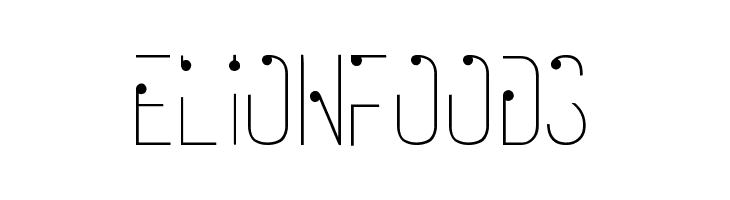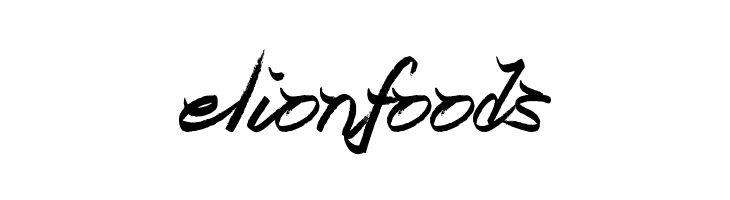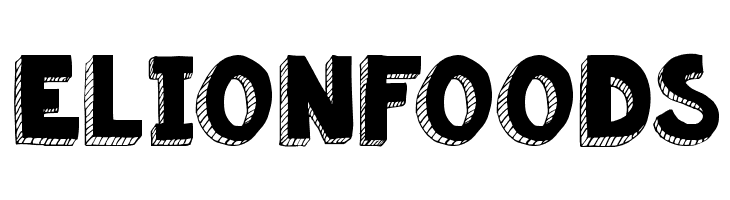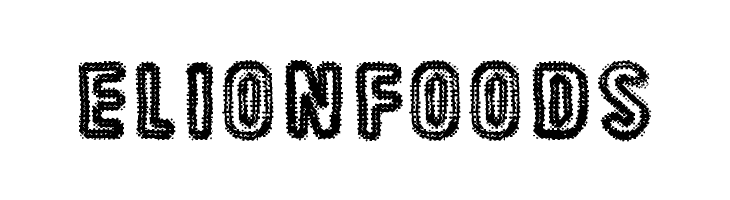
A playful, pizza-themed decorative font with bold outlines and whimsical details.
A bold, playful font with a whimsical, cartoonish style.
A skyline-inspired decorative font with a modern, architectural style.
A bold, italic, and geometric font with a dynamic and energetic style.
A bold, condensed font with a modern, industrial look.
A bold, condensed, and italicized font with a modern, dynamic style.
A bold, geometric font with angular shapes and a modern, industrial feel.
A modern, minimalist font with geometric shapes and dot embellishments.
A distressed, grungy font with bold, blocky characters and a rugged texture.
A bold, geometric font with a futuristic and modern style.
A playful, handwritten-style font with a light, italicized appearance.
A playful, informal font with rounded, consistent strokes and whimsical letterforms.
A playful, italicized font with a comic-like, handwritten style.
A playful, outlined font with a comic-like, whimsical style.
A playful, hand-drawn comic-style font with a whimsical and lively appearance.
A bold, textured font with a distressed, grunge aesthetic.
A bold, expressive brush script font with dynamic strokes and artistic flair.
A playful, hand-drawn font with a 3D sketch effect and diagonal hatching.
A bold, playful font with a 3D shadow effect, perfect for lively designs.
A bold, hand-drawn font with a playful shadow effect.
A bold, textured font with a playful, decorative style.